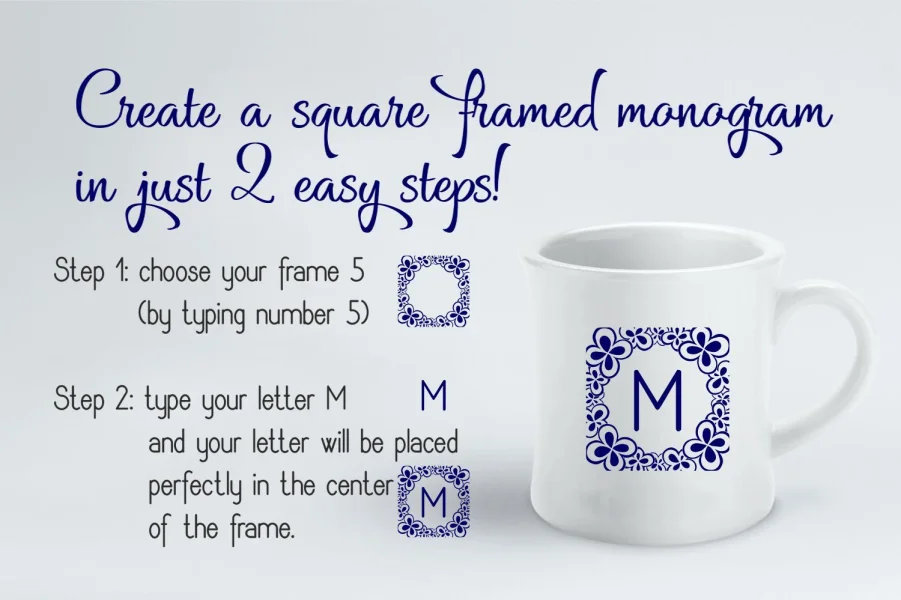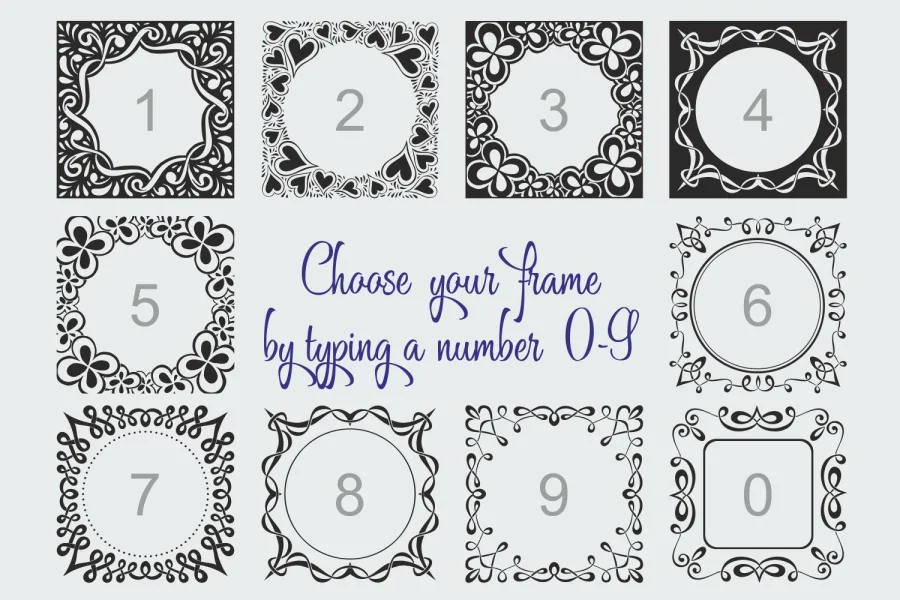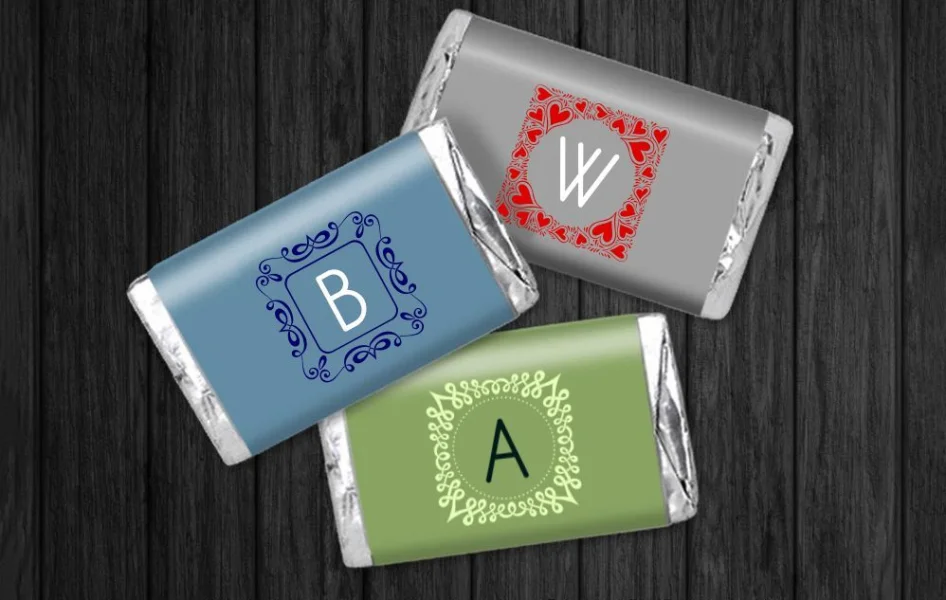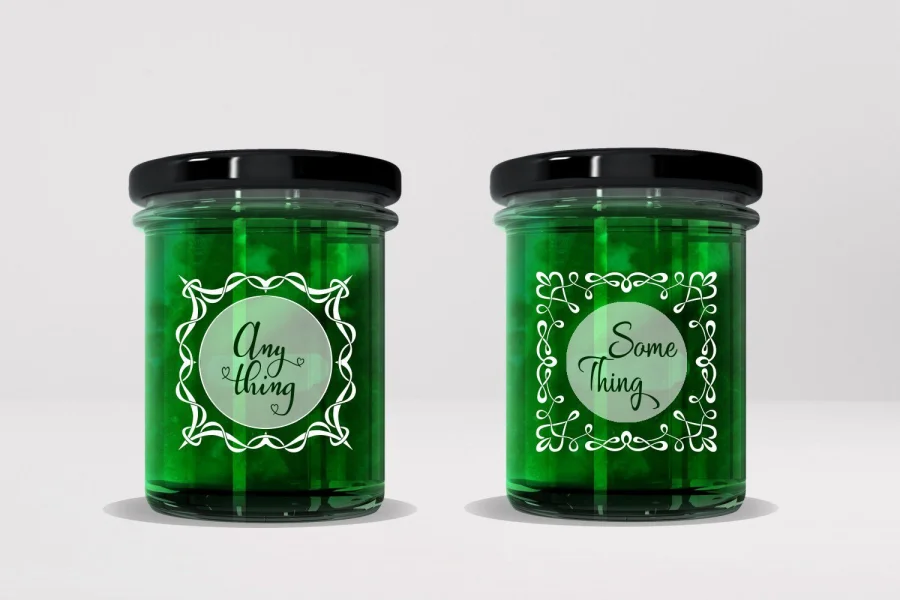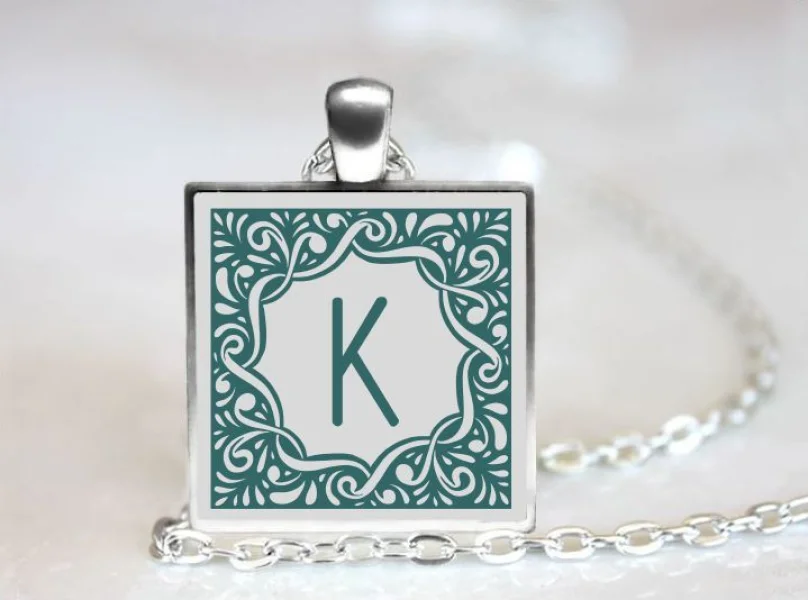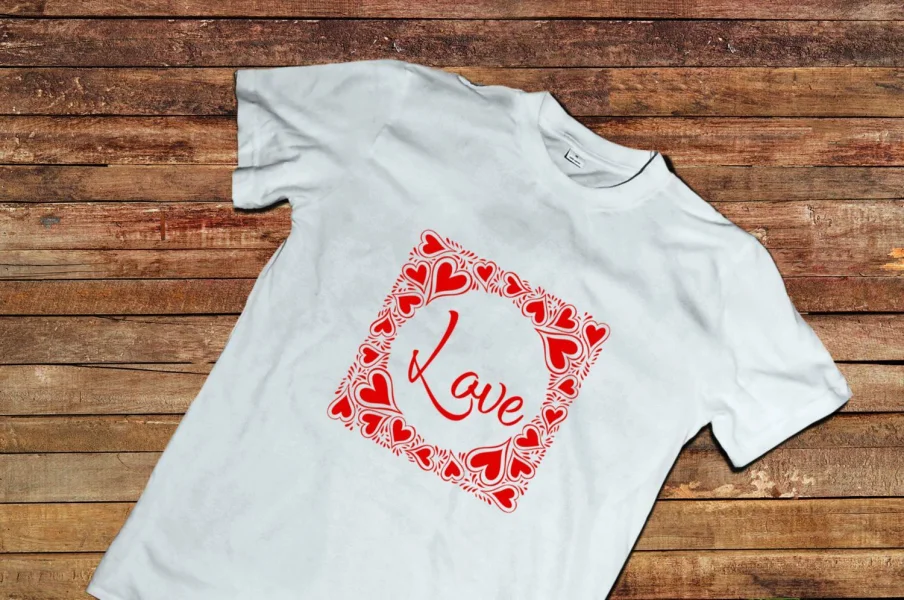
Easy to use:
1. Type number 2, 3 or 9 to get the frame (Demo has just 3 frames)
2. Type your letter you which will be placed in the center automatically.